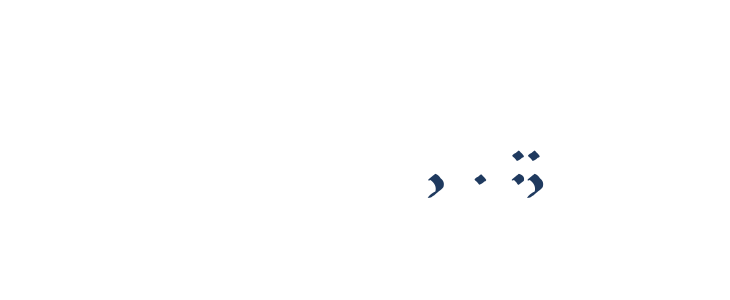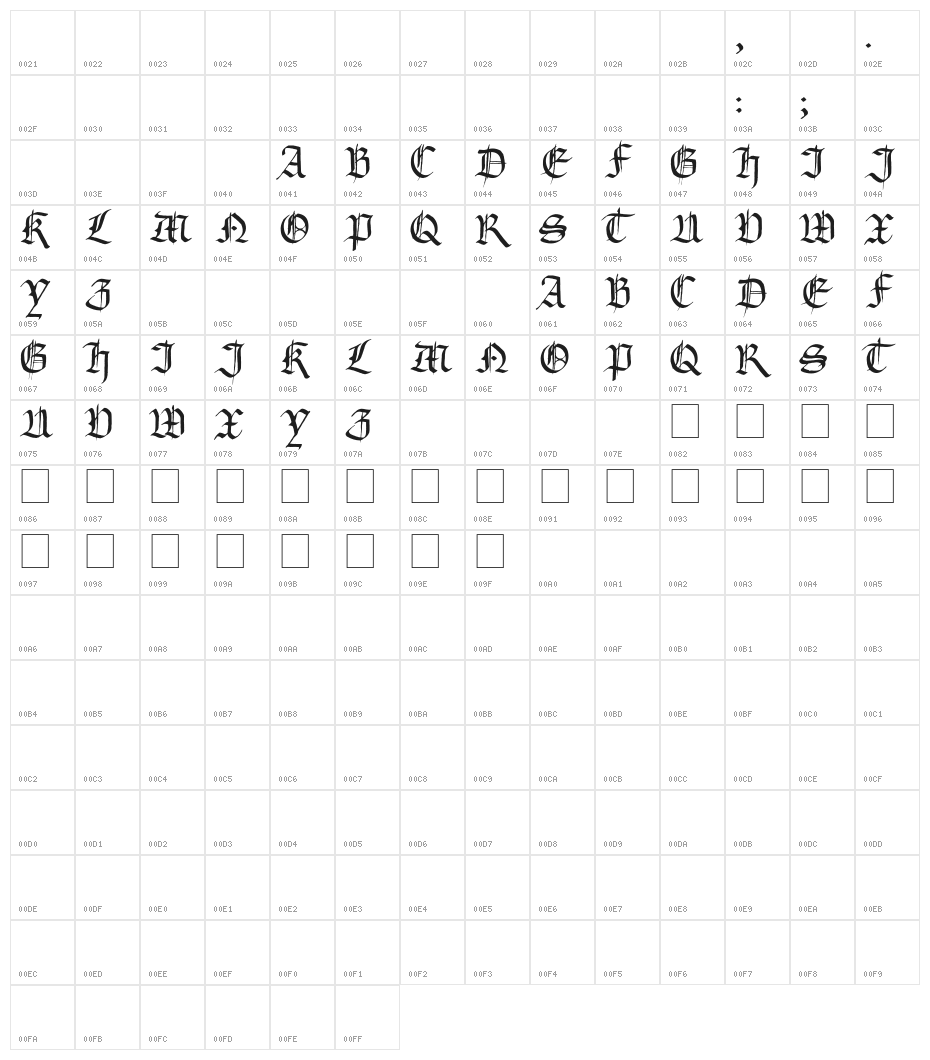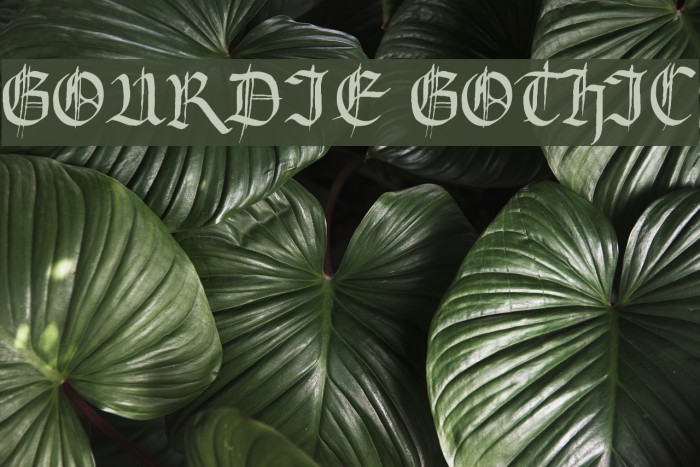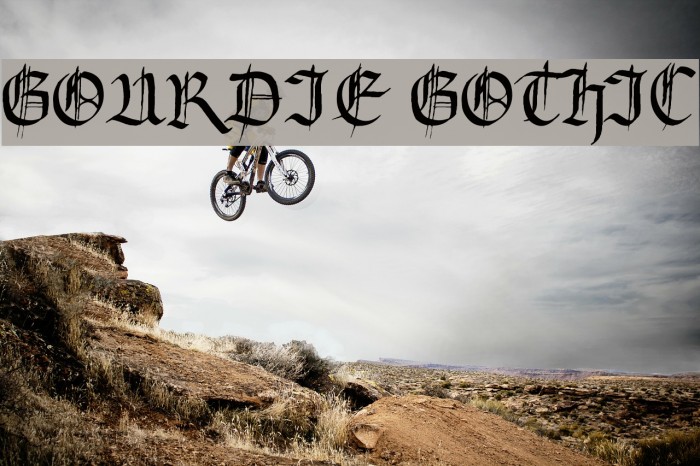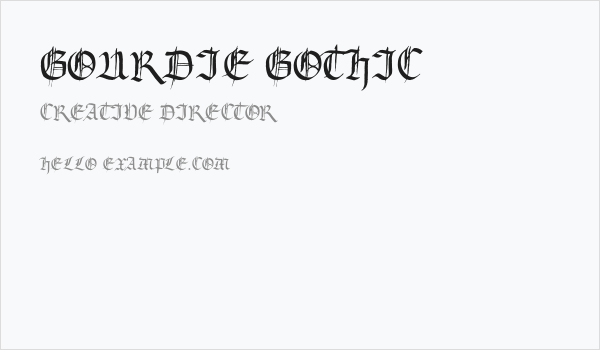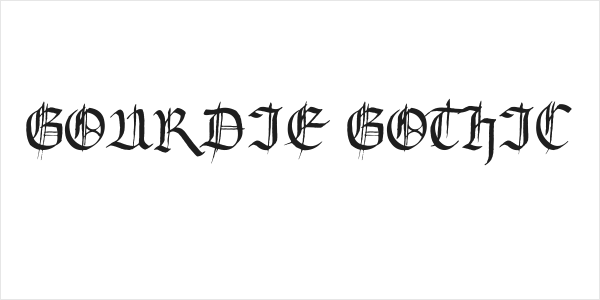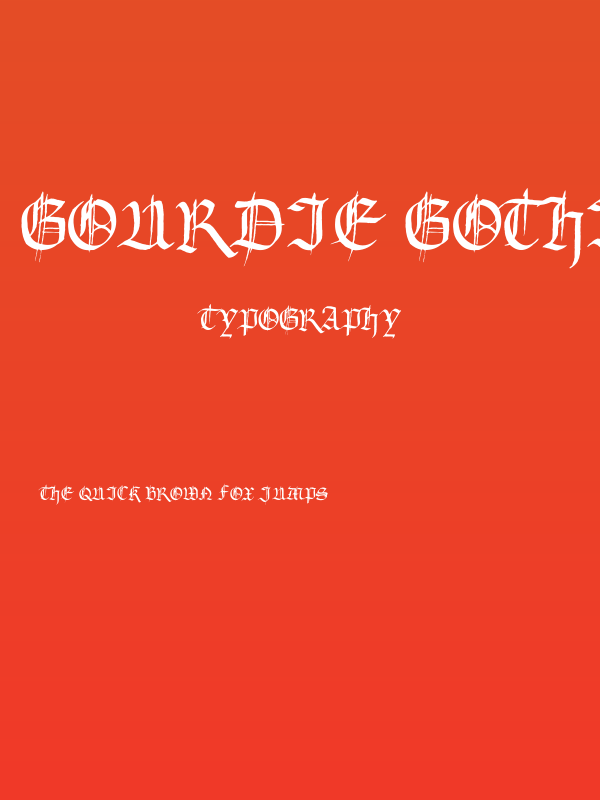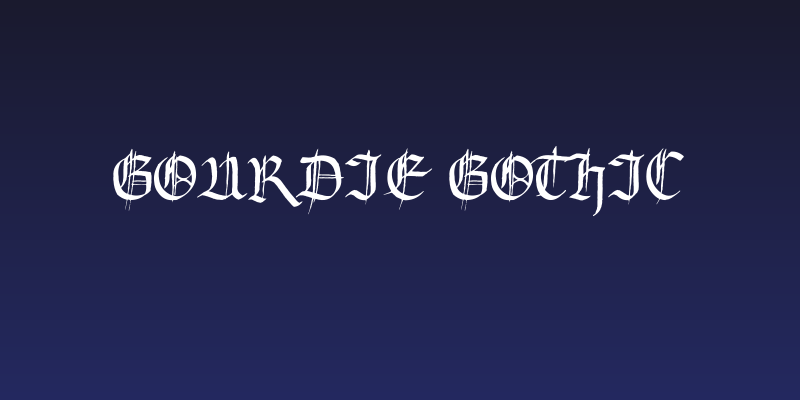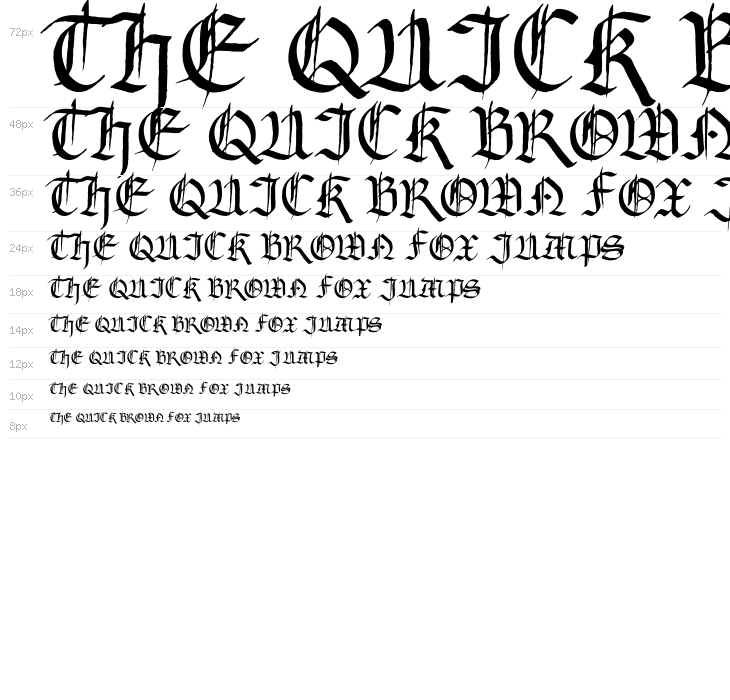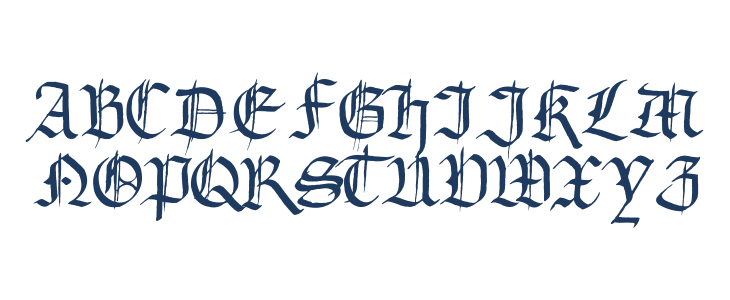
Gourdie Gothic Font
Gourdie Gothic Description
This font embodies a classic Gothic style with intricate, sharp edges and pointed serifs that evoke a sense of medieval elegance. The characters are highly stylized, featuring elaborate strokes and a distinct angularity that gives them a dramatic and ornate appearance. The uppercase letters are particularly striking, with their bold, sweeping lines and decorative flourishes. The lowercase letters maintain this intricate design, ensuring consistency throughout the typeface. The overall aesthetic is both historical and artistic, making it suitable for projects that require a touch of sophistication and tradition.
| Proposed Projects | Ideal for historical documents, fantasy-themed designs, book covers, and decorative signage. |